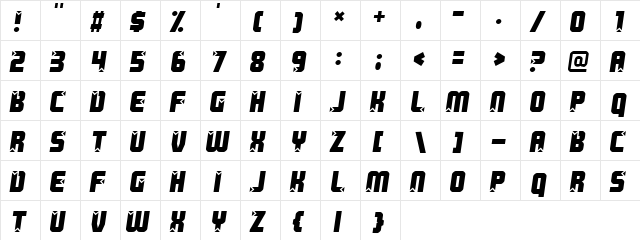
Killer boots Regular
Design Context for Killer boots Typeface
Killer boots is a composed and adaptable typeface that performs quietly and consistently across a wide range of design contexts.